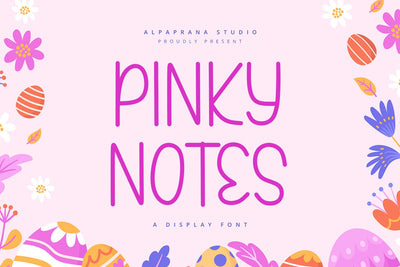
Pinky Notes - Display Font
Pinky Notes is a display font with cute and playful feels. It will be perfectly used for Branding, Logo Design, Lettering, Logotype, Clothing, Poster, magazine, packaging, posters, shopping bags, t-shirts, book covers, photography, special events and other design project.